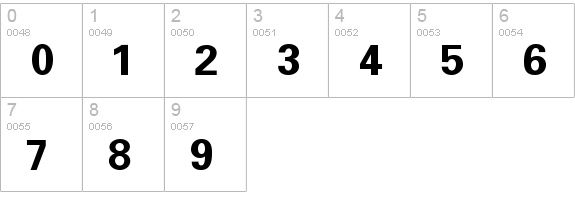
UniformBold Font Details
UniformBold is a captivating and versatile font that exudes confidence and professionalism. Its bold and commanding presence makes it ideal for headlines, logos, branding materials, and various print and digital designs. With its sleek and modern appearance, UniformBold effortlessly draws attention and delivers a strong visual impact. This font is meticulously crafted with precision, ensuring impeccable legibility in any size or format. Its clean lines and well-defined curves give UniformBold a contemporary edge, making it a perfect choice for both traditional and cutting-edge design projects. The best part about UniformBold is that it is freely available to download at FontsMarket.com. This means that you can easily access and utilize this exceptional font for all your creative endeavors without any cost. Whether you are a professional graphic designer or someone who simply appreciates high-quality typography, UniformBold is a valuable asset that will elevate your designs and make them stand out. So why wait? Take advantage of this amazing opportunity and download UniformBold from FontsMarket.com today. Unleash your creativity with this remarkable font and make a lasting impression with every design you create. With UniformBold, you have the power to communicate your message with boldness and finesse.